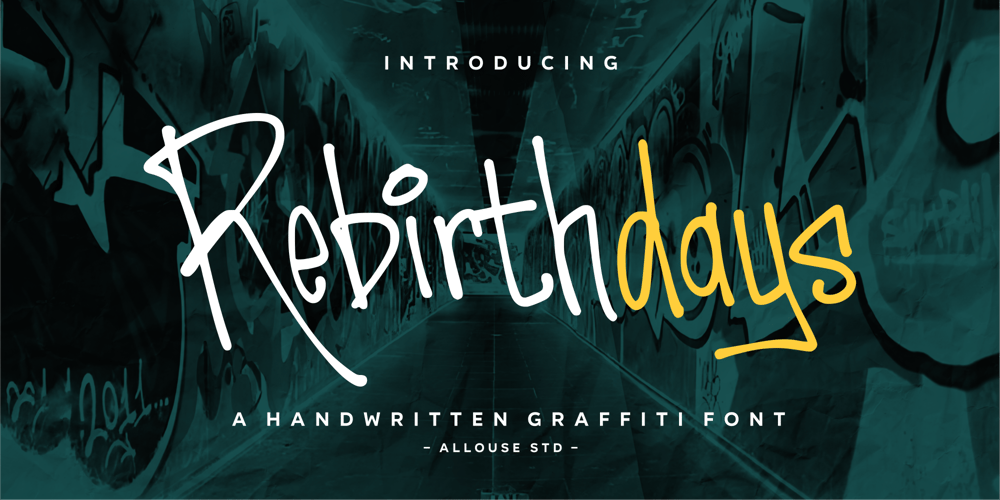
Rebirthdays Font Family was designed by Fachrizal Yusuf and published by Allouse Studio. Rebirthdays contains 1 styles and family package options. Proudly Present, Rebirthdays A Graffiti Tagging Font Styles.Rebirthdays is perfect for any titles, logo, product packaging, branding project, megazine, social media, wedding, or just used to express words above the background.Rebirthdays come with Multi-Lingual Support.Enjoy the font, feel free to comment or feedback, send me PM or email. Thank You!